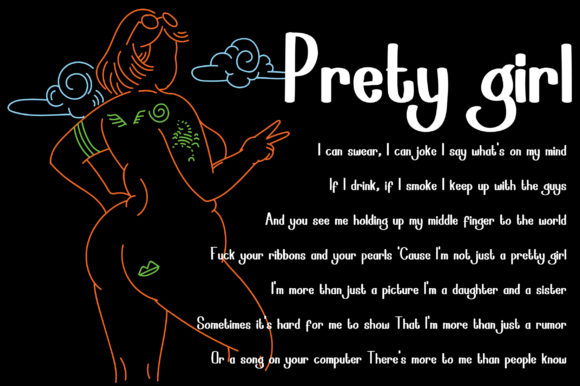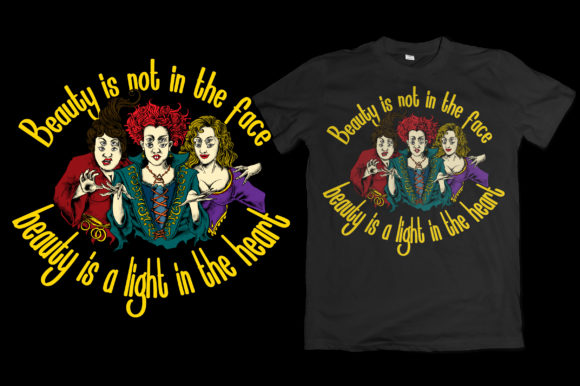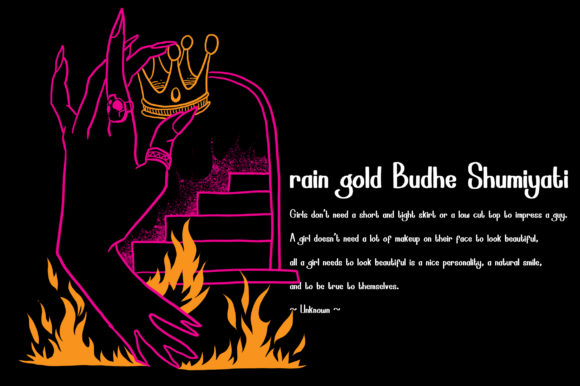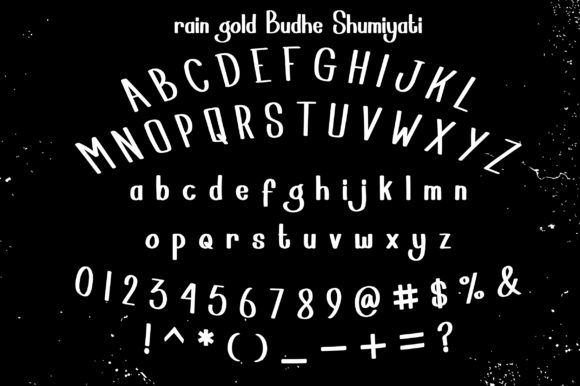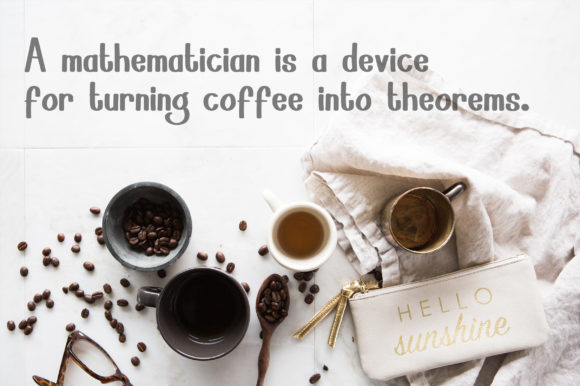
Introduction to Raingold Budhe Shumiyati Font
Raingold Budhe Shumiyati is a cute and simple sans serif font.
Its natural and unique style makes it incredibly fitting to a large pool of designs .
Key Features of Raingold Budhe Shumiyati Font
Why Choose Raingold Budhe Shumiyati Font?